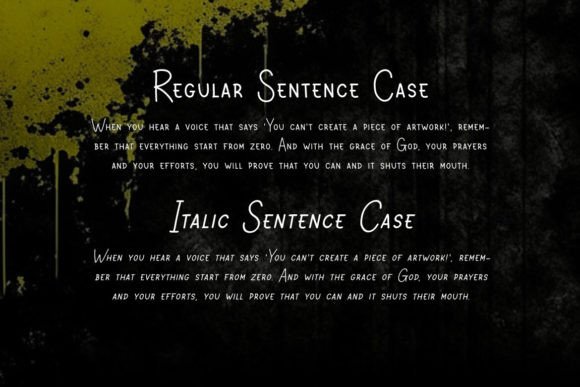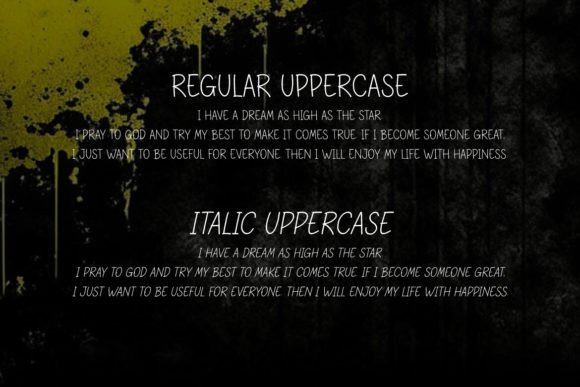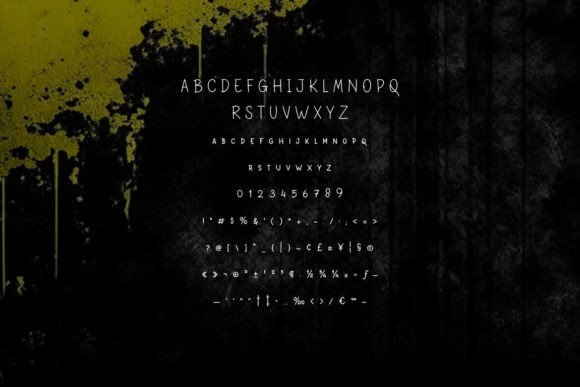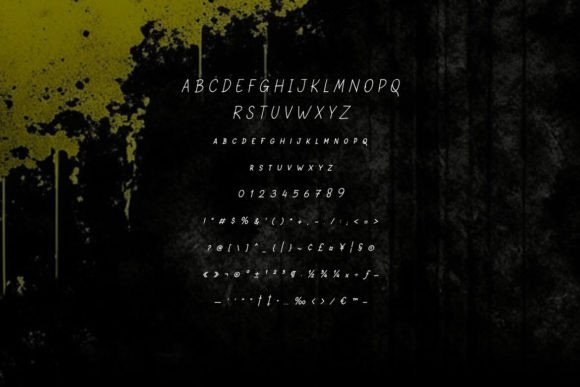
Unleash Your Creativity with Gastron Font: The Ultimate Choice for Fun and Dynamic Designs
Are you looking for a font that can add a burst of energy and playfulness to your projects? Look no further than Gastron, a fun and dynamic all-caps comic font designed to bring a lively touch to your designs. Whether you’re working on a comic, children’s book, poster, or any other project that needs a vibrant and lively feel, Gastron is the perfect choice.
What Makes Gastron Stand Out?
Gastron stands out from the crowd with its thin and animated style, making it the perfect choice for any project that needs a touch of humor and excitement. This font is designed to be attention-grabbing and engaging, with a unique and quirky feel that’s sure to capture the imagination of your audience. Whether you’re designing for print or digital media, Gastron is the perfect choice for adding a lively and energetic feel to your work.
The Perfect Choice for Comics and Children’s Books
If you’re working on a comic or children’s book, Gastron is the ultimate choice for bringing your characters to life. This font is designed to be fun and playful, with a bold and dynamic style that’s perfect for speech bubbles, captions, and headings. The thin and animated style of Gastron also makes it perfect for creating engaging and interactive content, such as comics, cartoons, and animations.
Add a Touch of Humor and Excitement to Your Designs
Gastron is not just limited to comics and children’s books. This font can be used in a wide range of design projects, from posters and flyers to digital media and social graphics. Whether you’re designing for a kids’ party, a cartoon, or a fun and quirky brand, Gastron is the perfect choice for adding a touch of humor and excitement to your designs.
Key Features of Gastron Font
- All-caps comic font: Gastron is an all-caps font, making it perfect for headlines, titles, and speech bubbles.
- Thin and animated style: The thin and animated style of Gastron gives it a unique and quirky feel that’s perfect for adding a touch of humor and excitement to your designs.
- Fun and dynamic: Gastron is designed to be fun and dynamic, making it perfect for comics, children’s books, posters, and more.
- Perfect for print and digital media: Gastron can be used in a wide range of design projects, from print materials like posters and flyers to digital media like social graphics and animations.
Why Choose Gastron Font?
So why choose Gastron font for your next project? Here are just a few reasons why Gastron is the perfect choice:
- Adds energy and playfulness: Gastron adds a burst of energy and playfulness to your designs, making it perfect for projects that need a lively and engaging feel.
- Unique and quirky style: The thin and animated style of Gastron gives it a unique and quirky feel that’s sure to capture the imagination of your audience.
- Perfect for a wide range of projects: Gastron can be used in a wide range of design projects, from comics and children’s books to posters and digital media.
Get Ready to Unleash Your Creativity with Gastron!
So why wait? Add a dose of excitement to your next project with Gastron font. With its fun and dynamic style, Gastron is the perfect choice for any designer or crafter looking to add a lively and energetic feel to their work. Whether you’re working on a comic, children’s book, poster, or any other project, Gastron is the ultimate choice for bringing your ideas to life.
So go ahead, unleash your creativity with Gastron, and watch your designs come to life with energy, playfulness, and excitement!